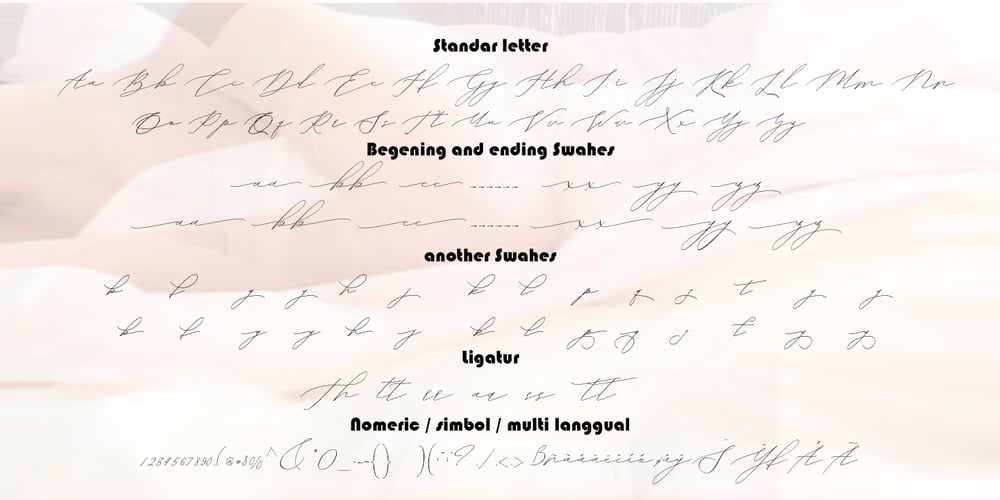
Saylove
Saylove font
Saylove Font Family was designed by Muhammad Akbar and published by Sinfa. Saylove contains 1 styles and family package options. Something beautiful does require extra energy to realize it !!! This Saylove font is very tiring in its work but now you only need a few minutes in an instant to make various crafts that you are working on, which allows you to work on various types of typography you need to get beautiful hands made in a short time. With some interesting initial and final forms, the Saylove font suits your needs in creating logos, invitations, cards, product packaging, headers, and whatever you want. You will be very satisfied with the presence of attractive replacement letters, where you can make according to the shape you expect, Saylove is equipped with a number of small letters including swash that you can use to realize a hand job that suits your imagination. I really hope you will get special satisfaction in using this font.